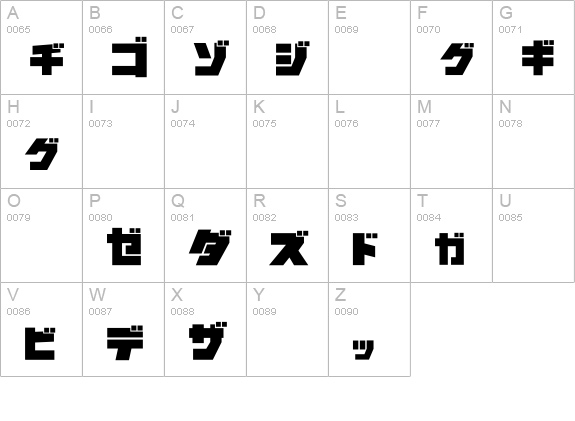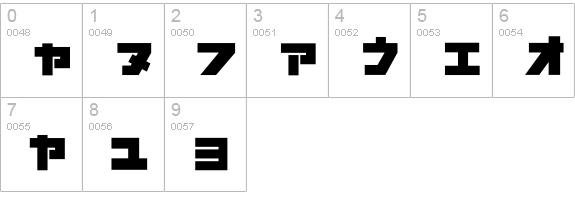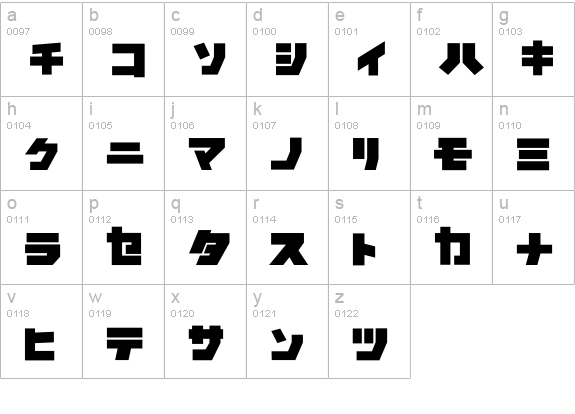
NEURONA-Katakana Font Details
NEURONA-Katakana font is a striking and modern typeface that beautifully combines traditional Japanese Katakana characters with a contemporary design aesthetic. With its clean lines and futuristic feel, this font is perfect for adding a touch of sophistication to any project. The NEURONA-Katakana font is versatile and can be used for a variety of design purposes, from branding and packaging to digital art and social media graphics. Best of all, NEURONA-Katakana font is available for free download at FontsMarket.com. This means you can easily access this unique and eye-catching font to elevate your designs without any cost. Don't miss out on the opportunity to add NEURONA-Katakana font to your font library today!